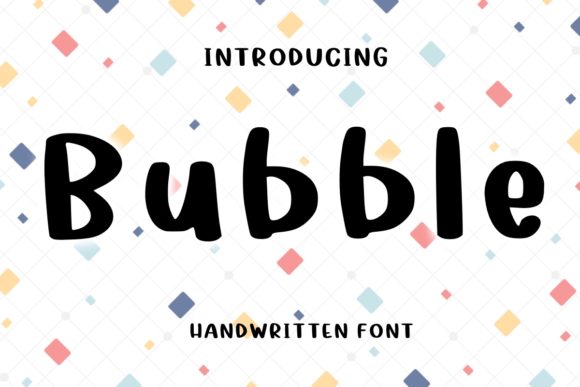
The Enchanting World of Bubble Font: A Designer’s Delight
I’ll never forget the moment I stumbled upon the Bubble Font. I was working on a DIY project for a client’s birthday, and I was determined to make it special. As I scrolled through my font library, I came across this quirky, hand-drawn font that seemed to scream “fun” and “playfulness.” The Bubble Font was born out of a stunning pairing of a brush pen and pencil, making it look incredibly endearing and authentic. I was hooked!
- ✅ Unique and eye-catching design that’s perfect for DIY projects, crafts, and creative endeavors
- ✅ Works beautifully for titles, headings, and short paragraphs
- ✅ The hand-drawn feel makes it perfect for projects that require a personal touch
A Few Quirks to Keep in Mind 🤔
- ⚠️ Limited character set, so it may not be suitable for body text or lengthy content
- ⚠️ Some characters may require manual adjustments for optimal spacing and alignment
The Story Behind Bubble Font: A Designer Inspiration
The Bubble Font was created by a talented designer who wanted to capture the essence of hand-drawn typography. With a passion for illustration and lettering, the designer experimented with different brush pens and pencils to create a unique, eye-catching font. The result is a font that’s both playful and elegant, perfect for a wide range of creative projects.
| Font Name | Bubble Font |
| Author | Ality |
Q: What is the Bubble Font best used for?
A: The Bubble Font is perfect for DIY projects, crafts, and creative endeavors that require a personal touch. It’s ideal for titles, headings, and short paragraphs.
Q: Is the Bubble Font suitable for body text?
A: While the Bubble Font is beautiful, it’s not recommended for body text due to its limited character set and hand-drawn feel.